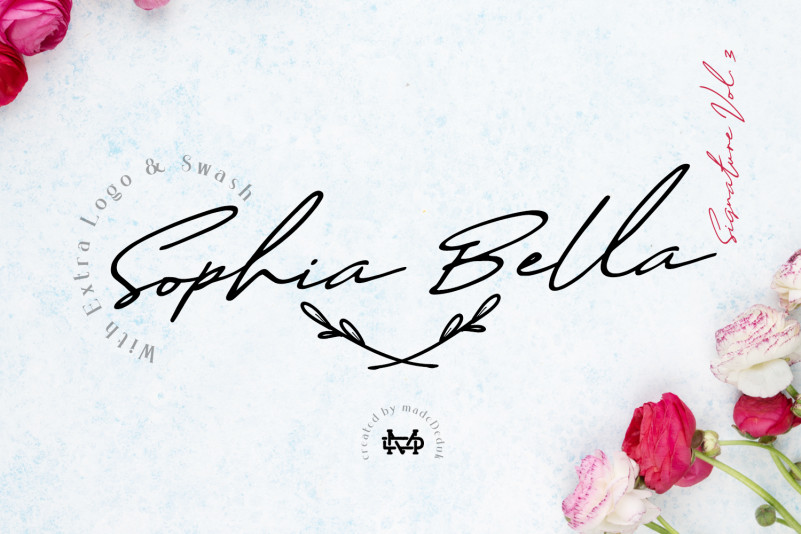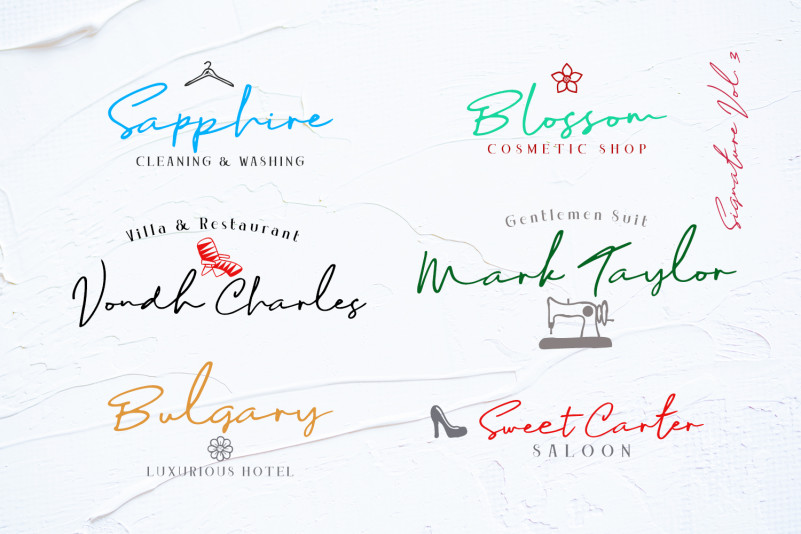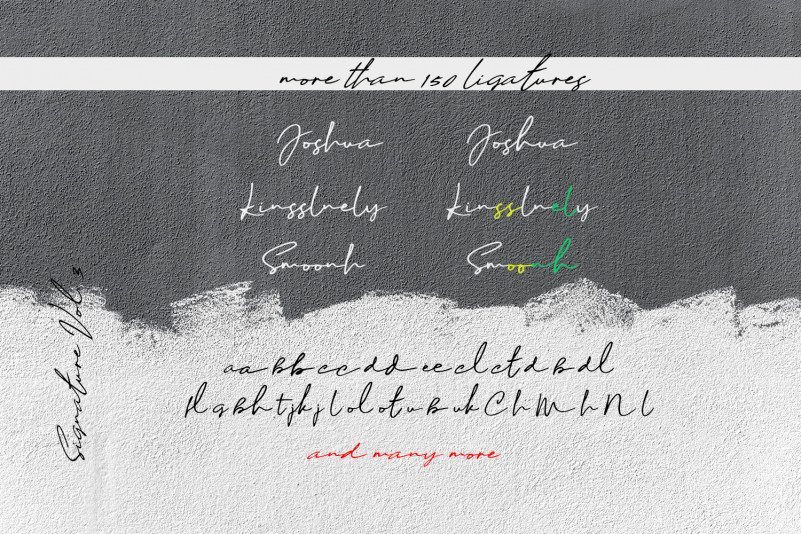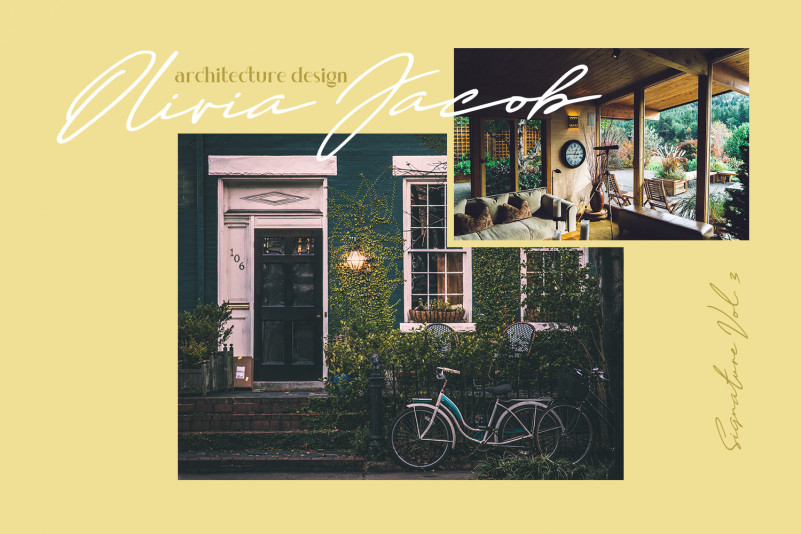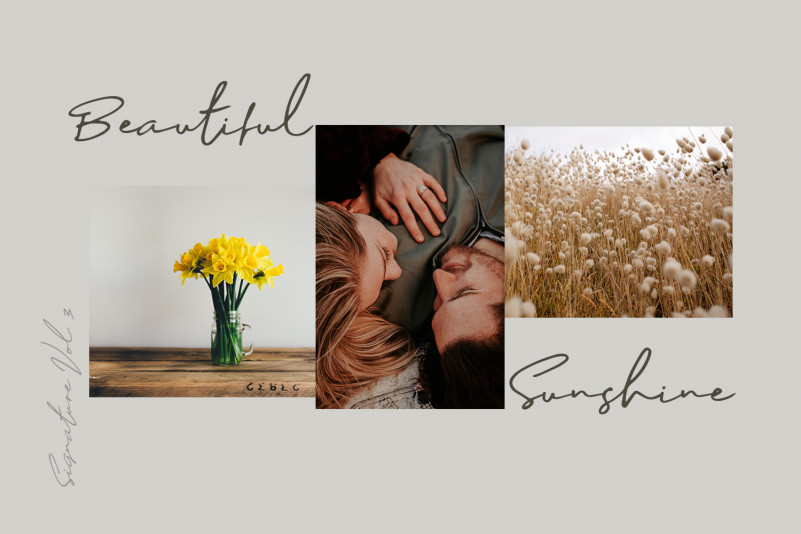
Sophia Bella Font
Sophia Bella Handwritten
Introducing Sophia Bella is VOL.3 gorgeous handmade signature font. Sophia Bella Handwritten includes more than 170 ligatures to make everything look natural handmade signature.This font perfect for poster design, book covers, merchandise, fashion campaigns, newsletters, branding, advertising, magazines, greeting cards, album covers, and quote designs and more.